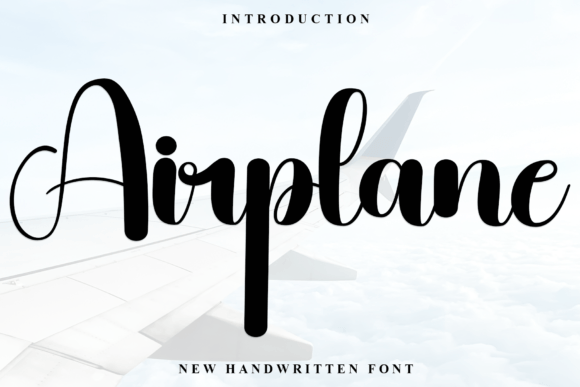
The Charm of Airplane Font: A Designer’s New Best Friend
Airplane Font has quickly become one of my go-to fonts for a variety of design projects. Here’s what I love about it:
- ✨ Fluid strokes and organic lines that give it a charming, handwritten feel
- ✅ Perfect for branding, invitations, social media graphics, and more
- ✅ Easy to read, even at smaller font sizes
- ✅ Highly versatile – works well with both bold and light color schemes
Of course, no font is perfect, and Airplane Font does have a few quirks:
- ⚠️ Some users might find the font a tad too casual for very formal projects
- 🤔 Limited availability of certain OpenType features (but more on that later)
The Story Behind Airplane Font
Airplane Font was designed by a talented typographer who wanted to create a font that captured the essence of a carefree, adventurous spirit. Inspired by the fluid lines of handwritten letters and the elegance of refined typography, Airplane Font was born. While the designer’s exact story is shrouded in mystery, it’s clear that their passion and creativity have resulted in a truly unique and captivating font.
| Is Airplane Font suitable for body text? | While Airplane Font is highly readable, it’s best suited for shorter blocks of text or headings. For longer body text, you might want to consider a more traditional serif or sans-serif font. |
| Does Airplane Font support OpenType features? | Yes, Airplane Font supports a range of OpenType features, including glyphs, stylistic alternates, and ligatures. Experiment with these features to add more depth and personality to your designs. |